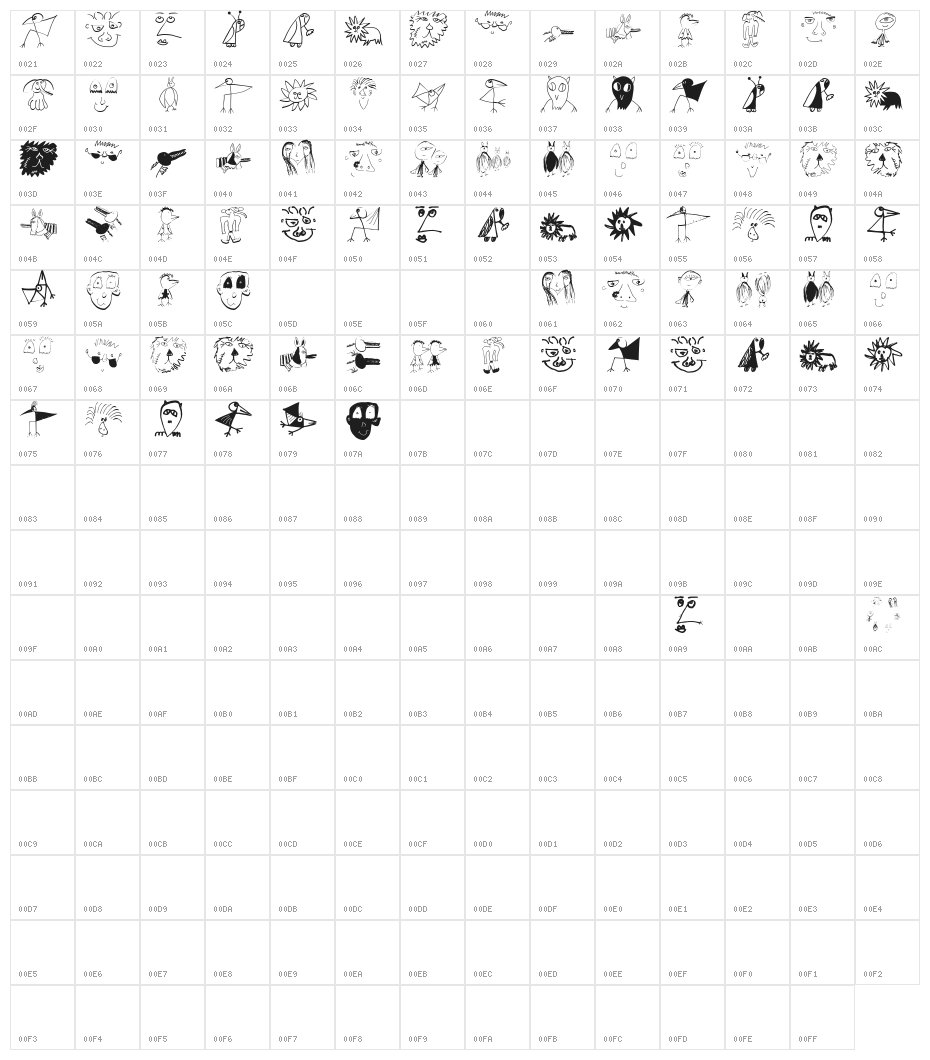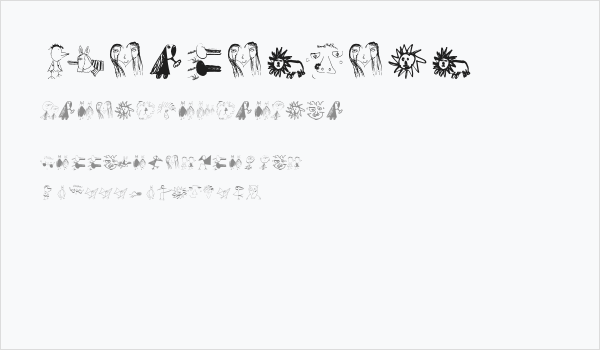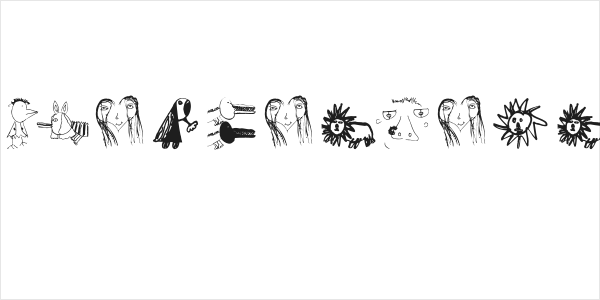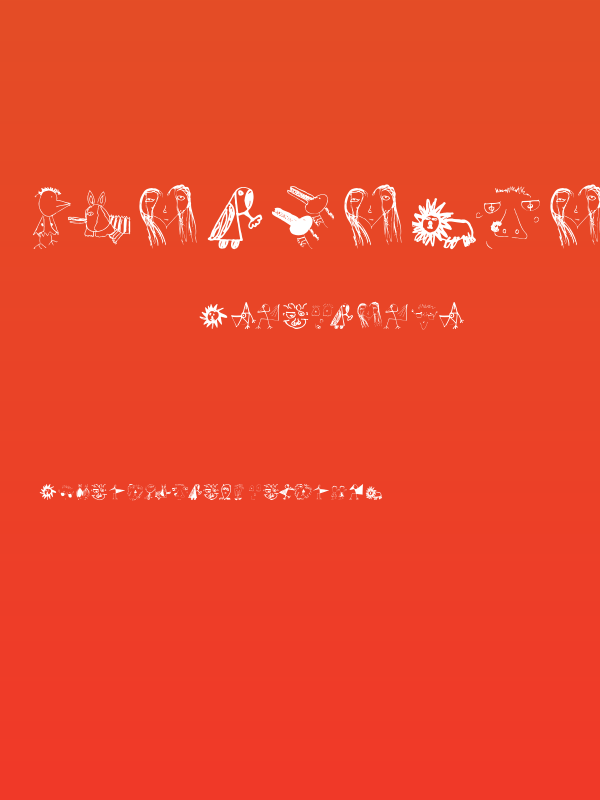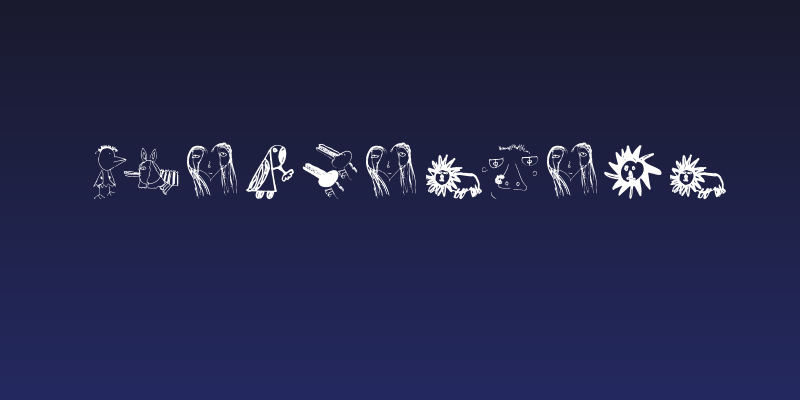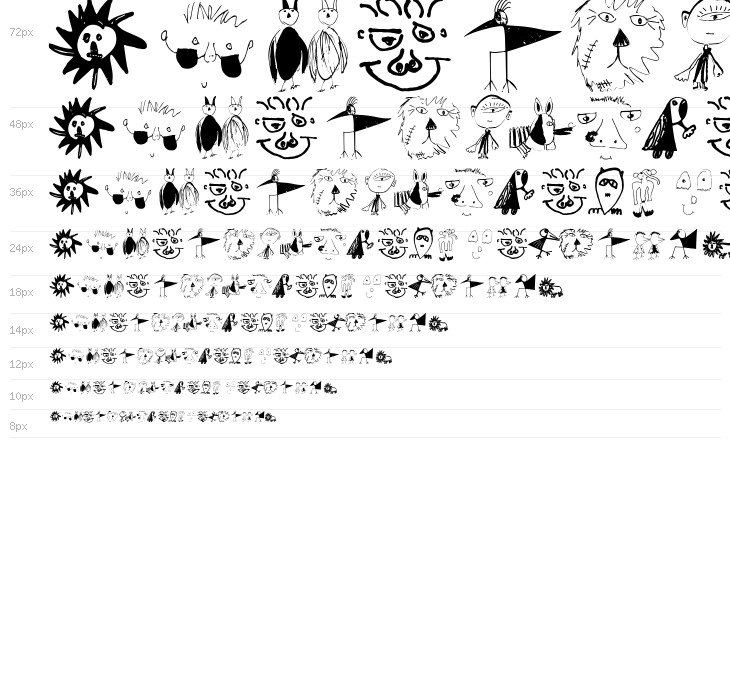
MKarlasBats Font
MKarlasBats Description
This is a highly decorative and whimsical font that features a series of playful, hand-drawn characters and symbols. Each character is uniquely illustrated, resembling doodles or sketches of various creatures and abstract forms. The style is informal and artistic, with a strong emphasis on creativity and expression. The font does not follow traditional typographic rules, making it ideal for projects that require a fun and unconventional look. The characters are bold and visually engaging, capturing attention with their quirky and imaginative designs.
| Proposed Projects | Ideal for children's books, creative posters, playful branding, and artistic projects. |